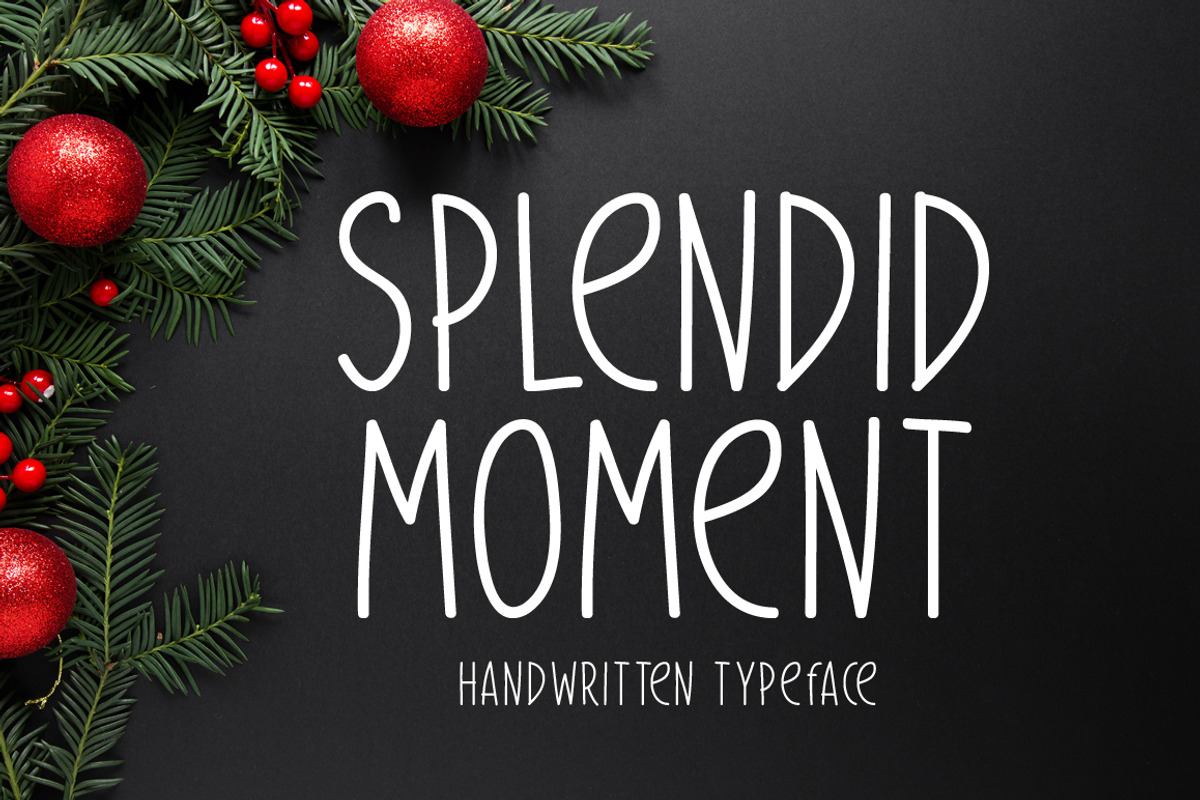
Splendid Moment Typeface Free Download
Splendid Moment Typeface Free Download is a graceful and elegant typeface designed to bring sophistication and charm to your designs. With its smooth curves, delicate strokes, and refined style, this font is perfect for high-end branding, invitations, wedding materials, luxury packaging, and more.
The font's elegant and timeless design makes it ideal for projects that need a touch of class and luxury. Whether you're designing for an upscale brand, creating an elegant invitation, or working on editorial layouts, Splendid Moment offers both beauty and versatility.